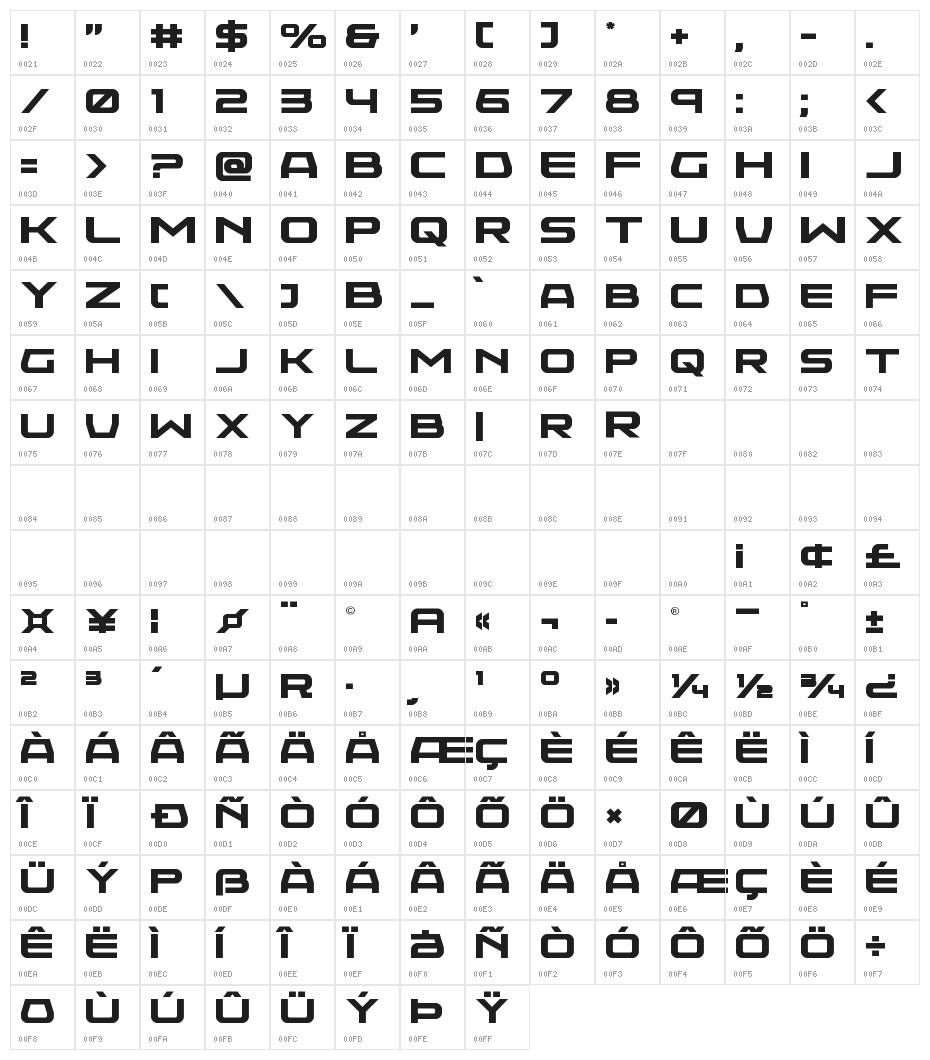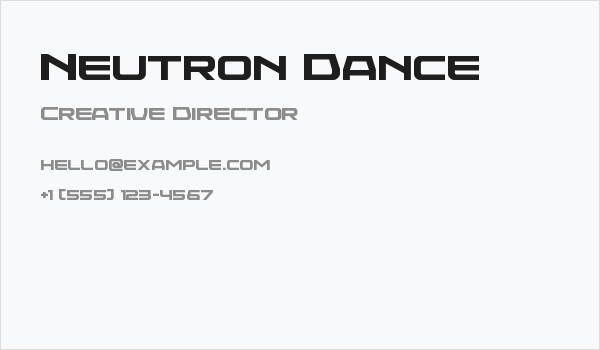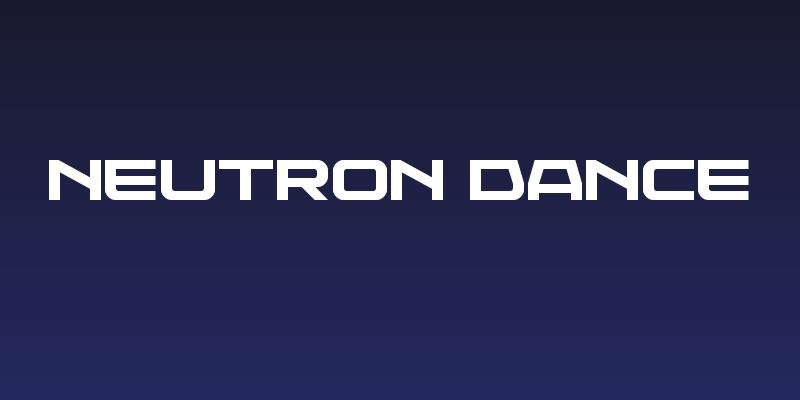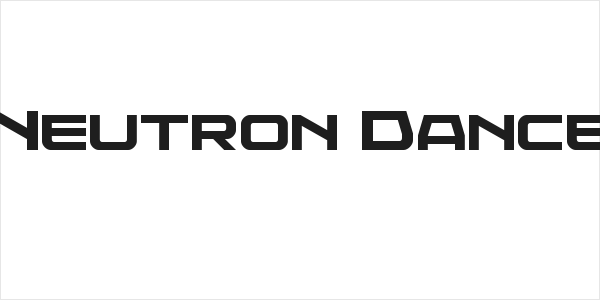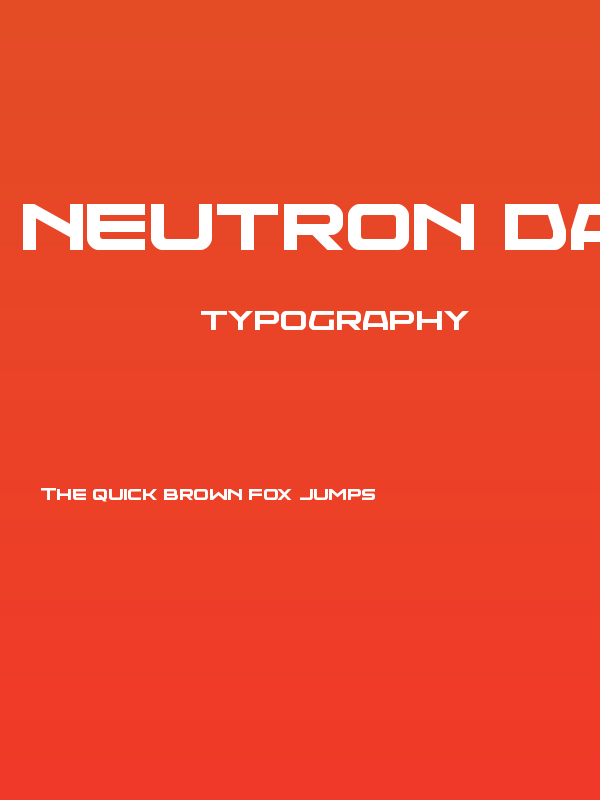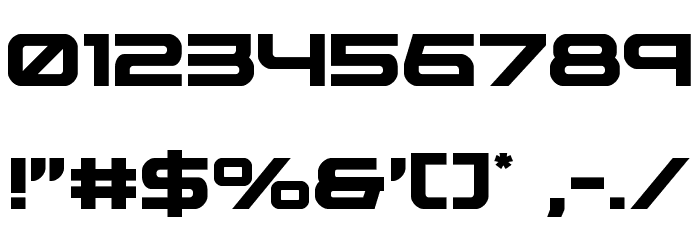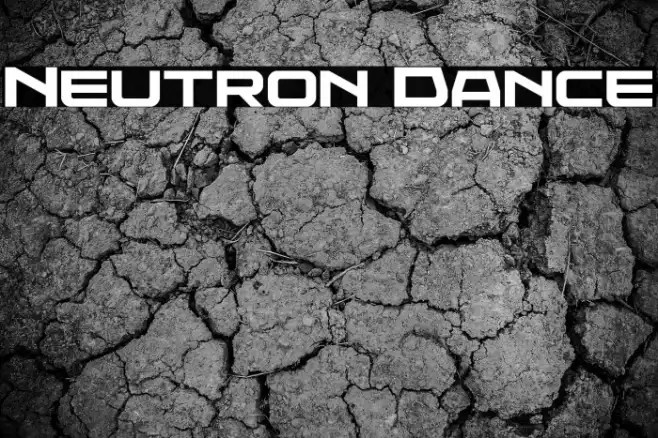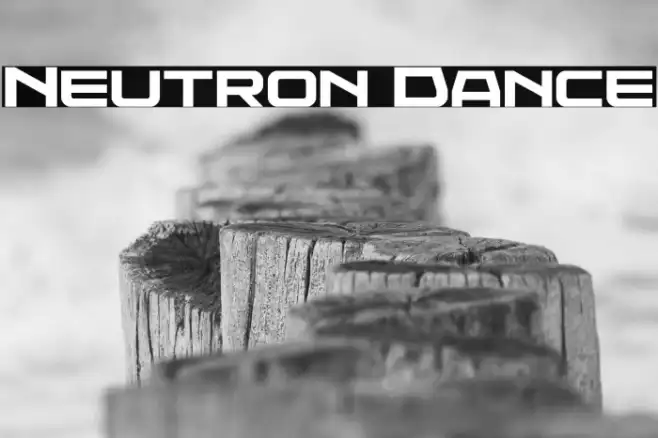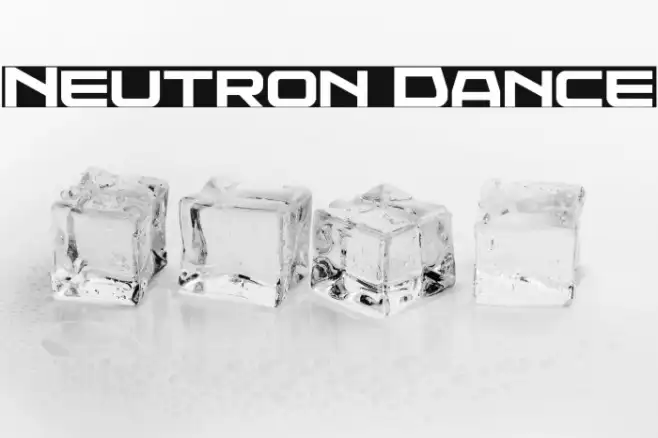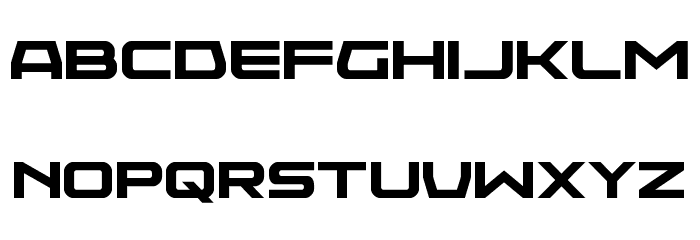
Neutron Dance Font
Neutron Dance Description
This font features a bold, geometric design with a futuristic aesthetic. The characters are constructed with sharp angles and clean lines, giving it a modern and tech-inspired look. The uppercase letters are uniform in height, while the lowercase letters maintain a consistent style, enhancing readability. Numbers and special characters are designed to match the overall angular theme, ensuring a cohesive appearance across all glyphs. The font's structure is solid and impactful, making it suitable for attention-grabbing designs.
| Proposed Projects | Ideal for technology branding, sci-fi themed projects, video game interfaces, and modern advertising campaigns. |